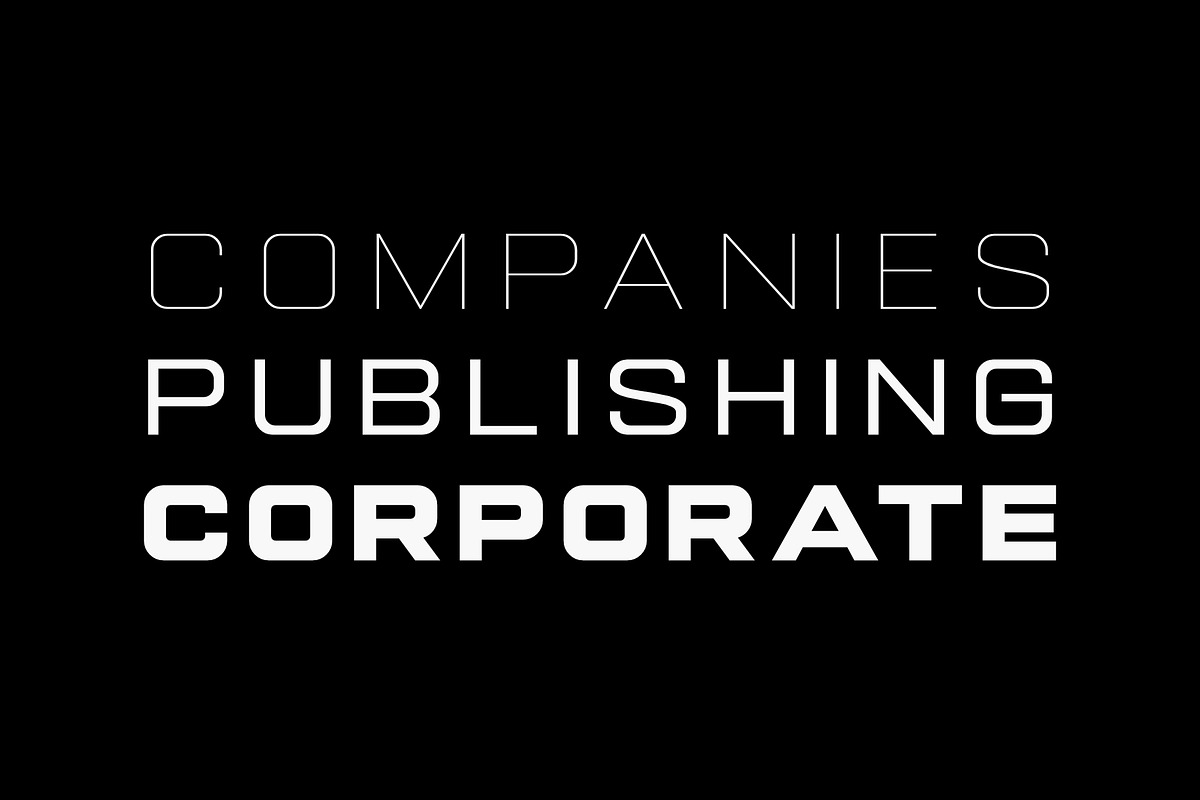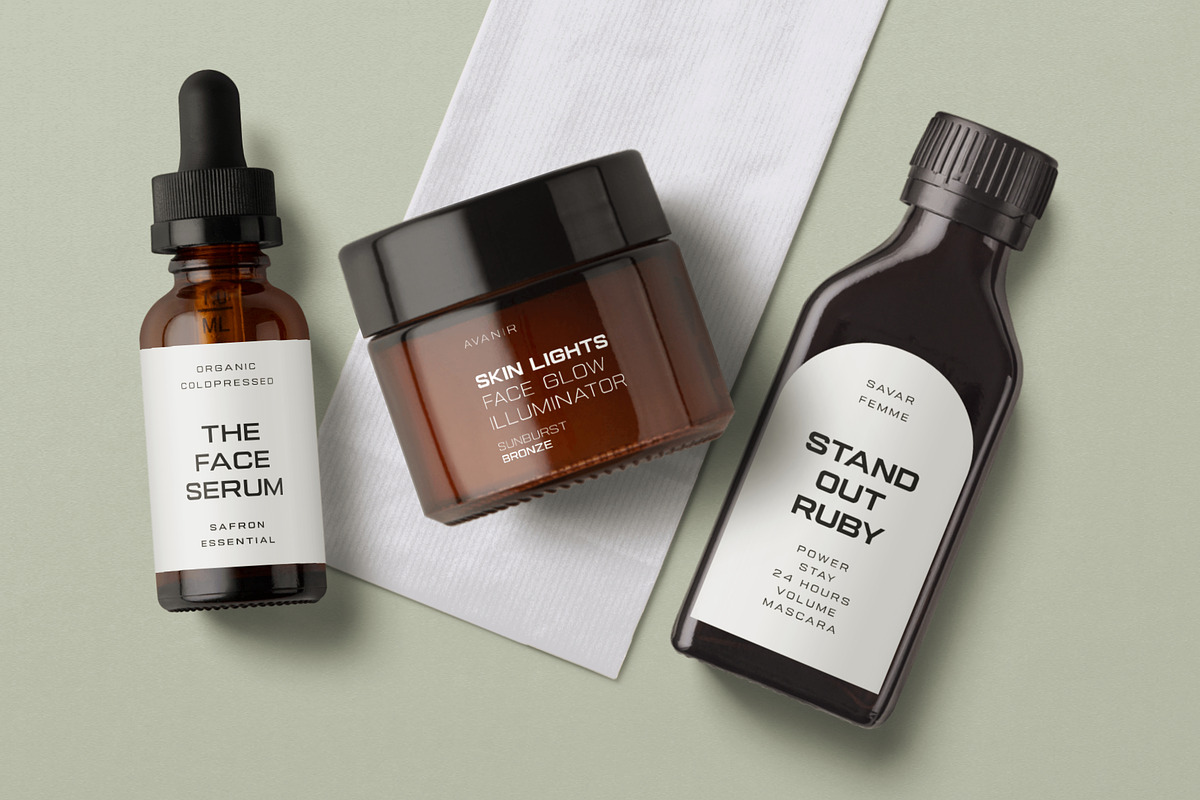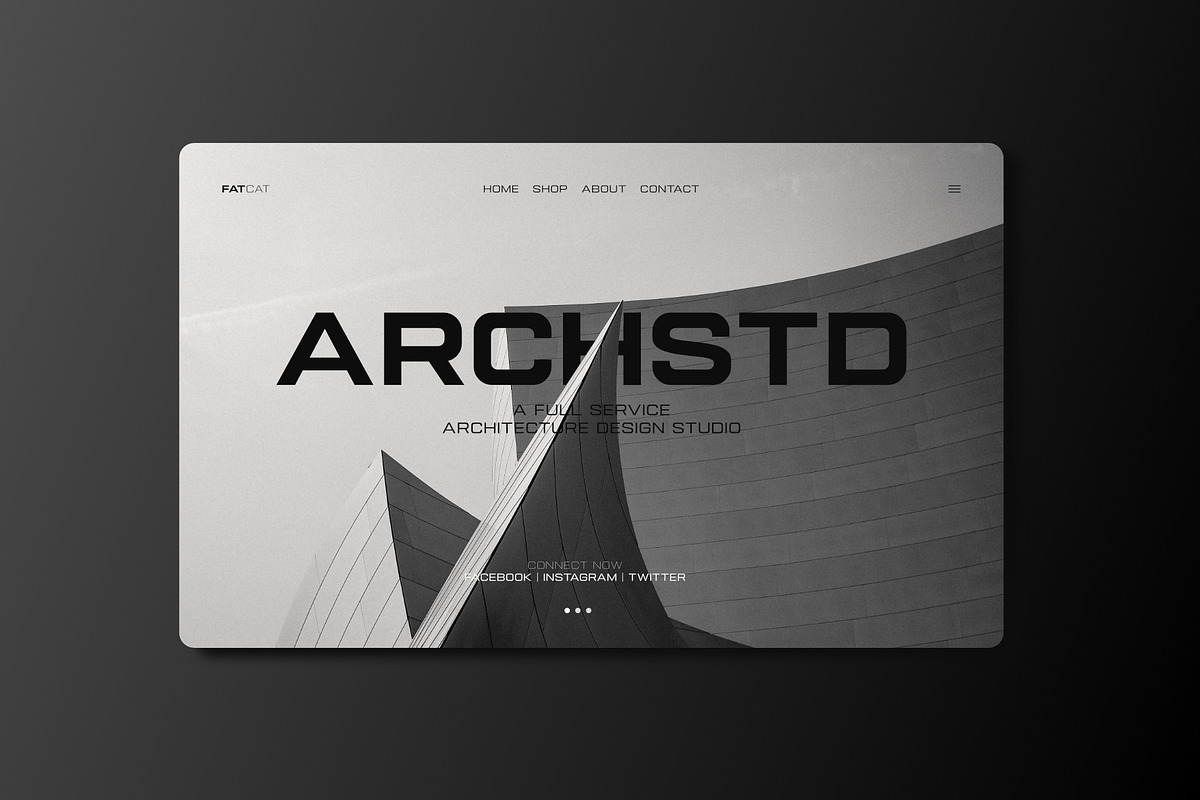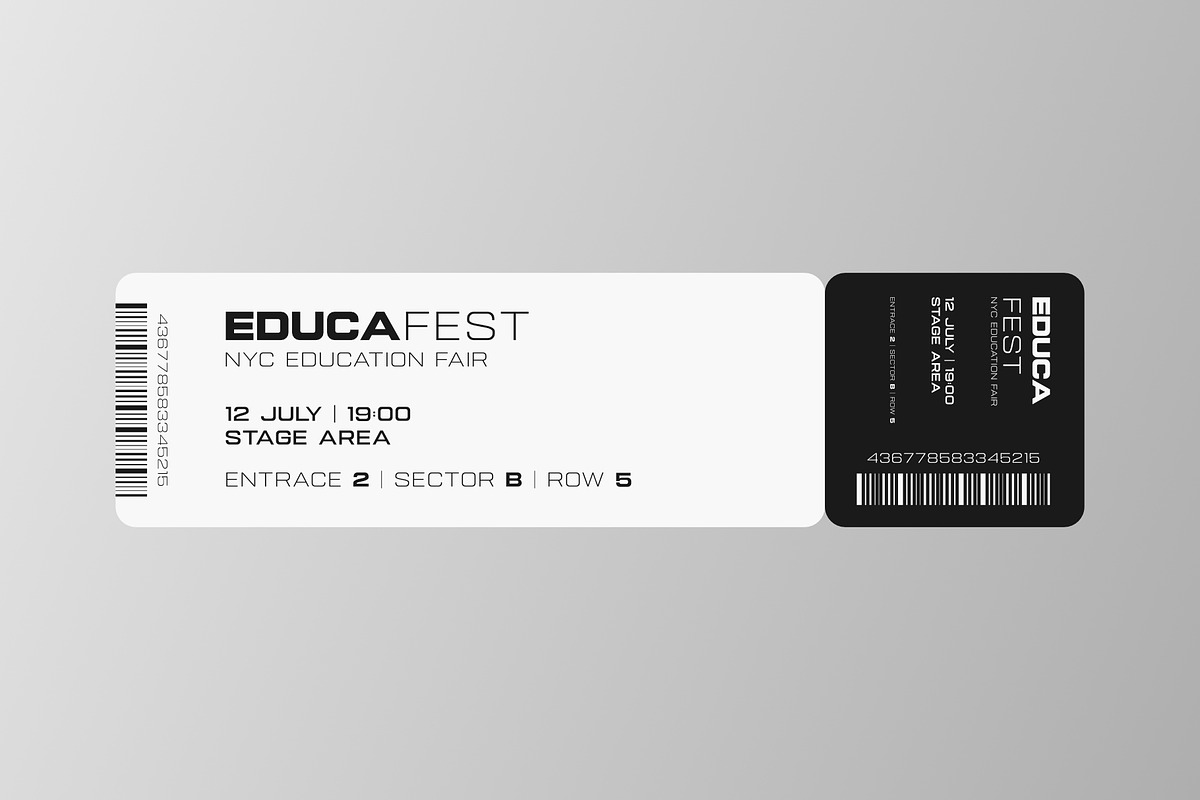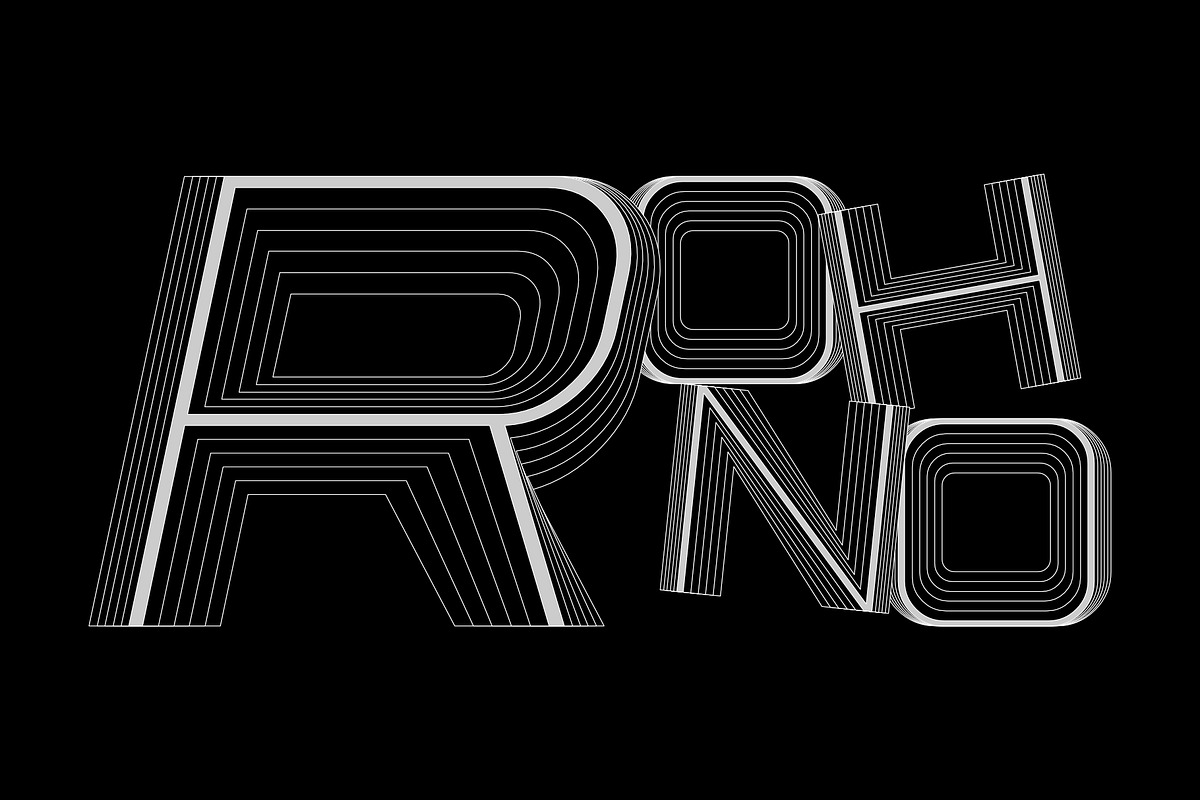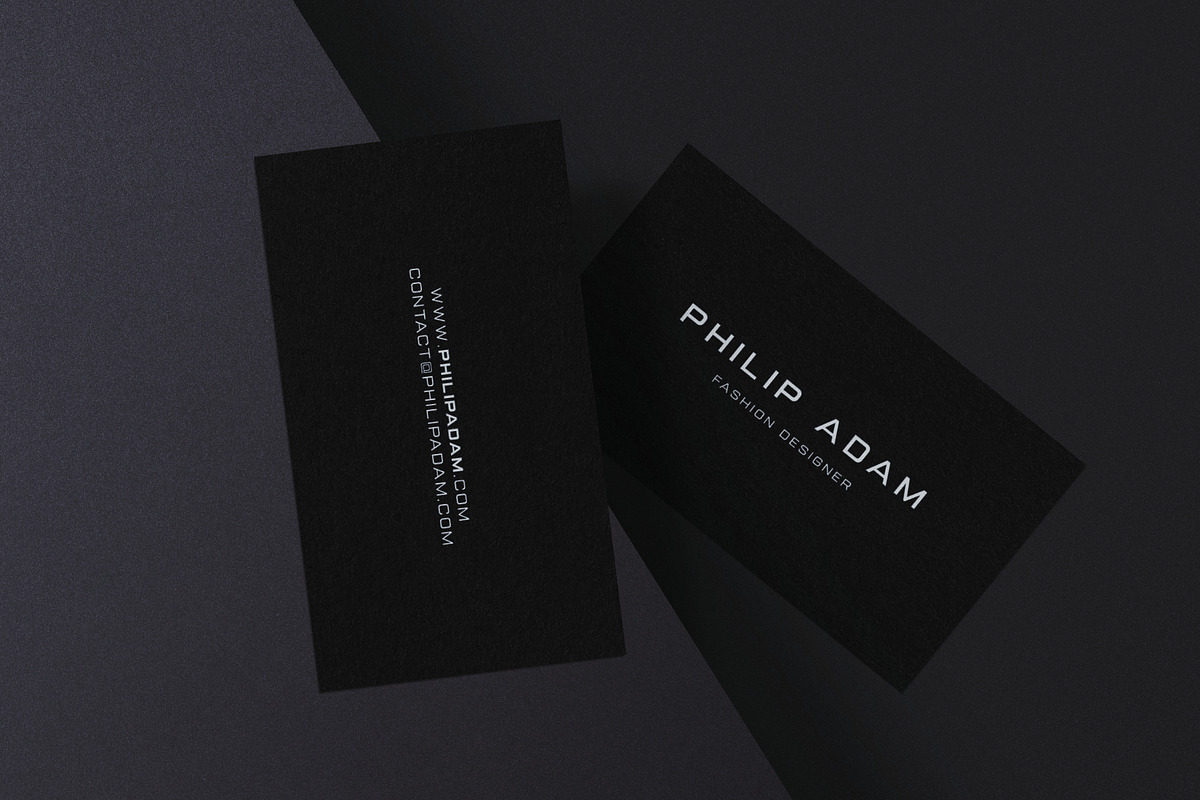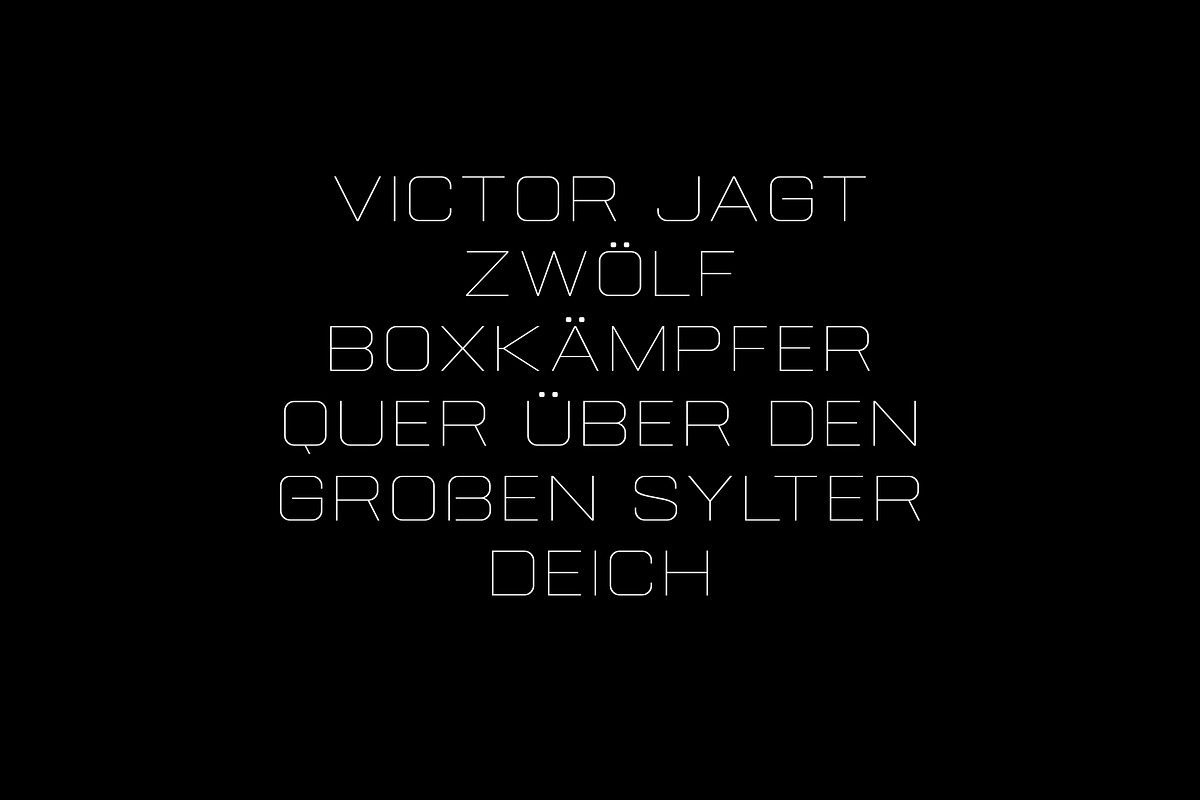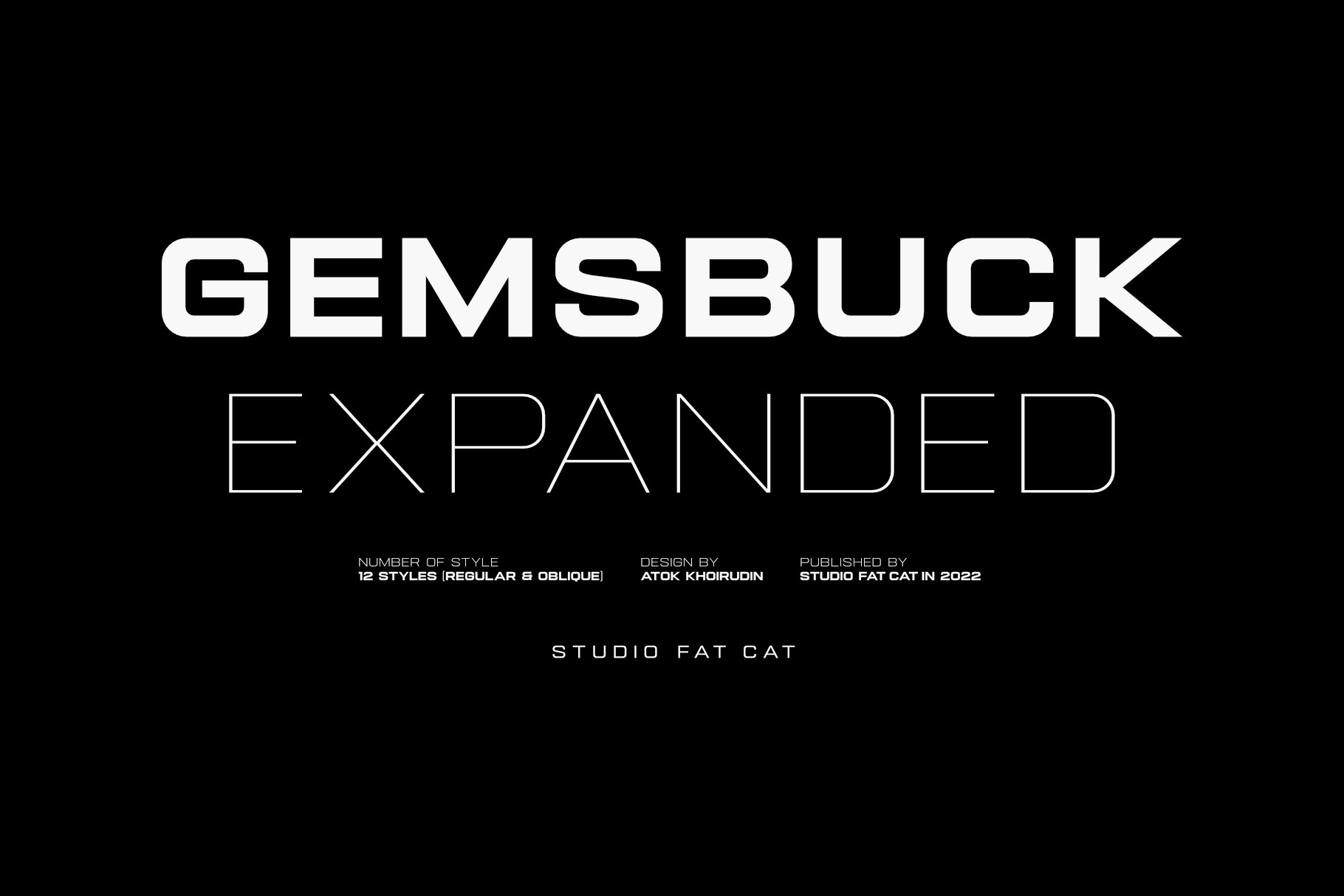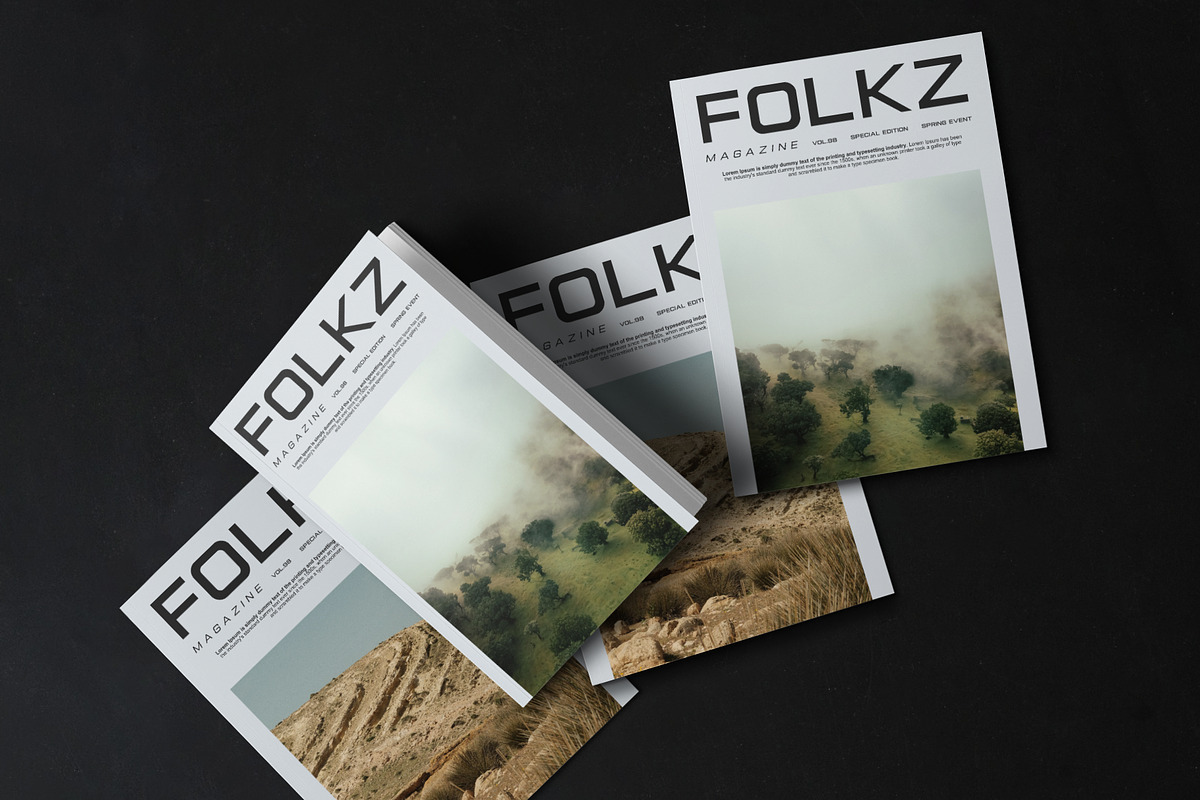
Gemsbuck 01 Modern Vintage Logo Font
Gemsbuck 01 is a modern geometric sans serif font built for bold branding, sleek logos, and cutting-edge design. With its clean, structured lines and subtle elegance, it fuses modern tech with a touch of vintage charm—perfect for forward-thinking brands that still appreciate classic style.
From high-end fashion to luxurious product packaging, Gemsbuck 01 brings a sense of innovation, technical precision, and refined luxury to every project. It’s bold yet minimal, elegant but versatile—just as at home in a futuristic engineering layout as it is on a stylish wedding invite or a stamped retro logo.
Whether you're crafting a logo tech identity, designing for modern branding, or creating something truly unique, Gemsbuck 01 is the kind of font that delivers timeless sophistication with a creative edge. It’s made for designers who want to stand out—with confidence, clarity, and a bit of futuristic flair.